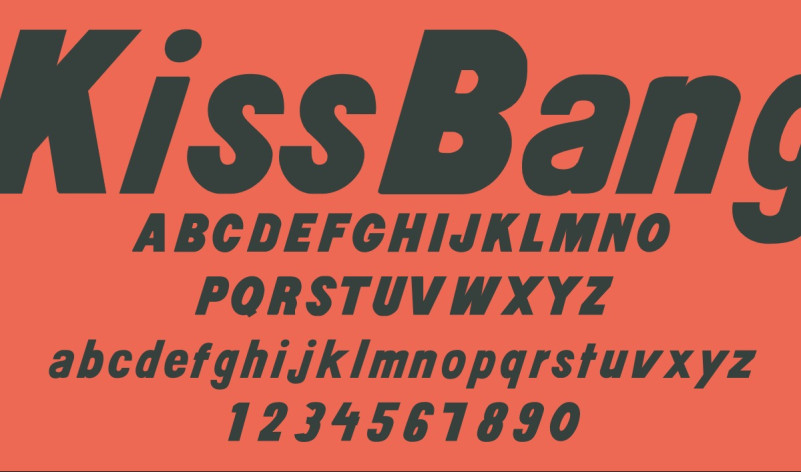
CA Kiss Kiss Bang Bang Font, is a sans serif stunning when combined or separately. This sans serif font style is legible and stunningly designed.
CA Kiss Kiss Bang Bang Font